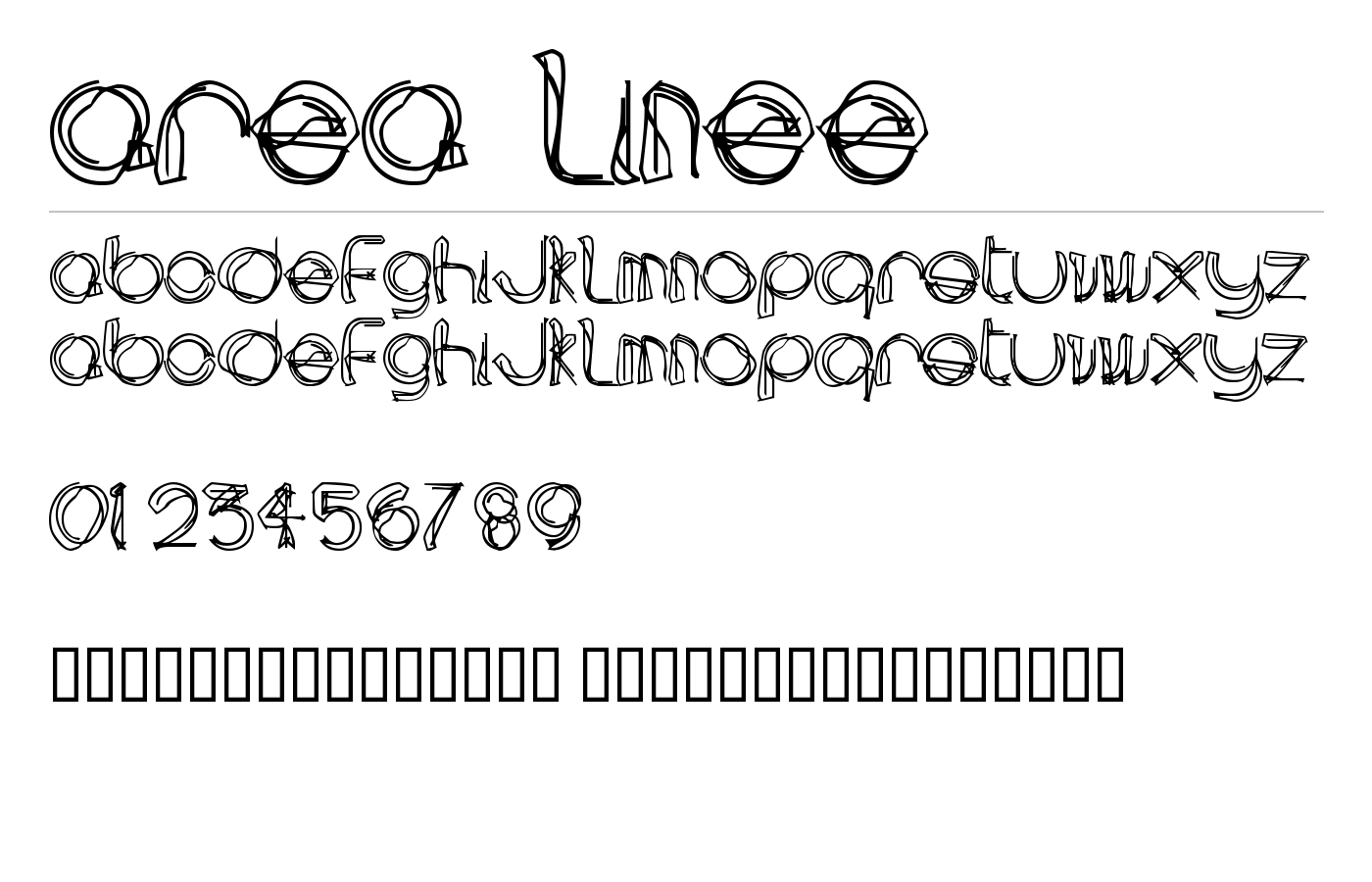
Area LINEe is a unique, playful sans serif font characterized by its layered, hand-drawn line strokes that create a dynamic and textured look. Its airy, irregular forms bring a creative and casual vibe, making it ideal for artistic projects, informal branding, and eye-catching headlines where personality and originality are key. This font works best in display settings where a distinctive, quirky style can shine.
area LINEe Font